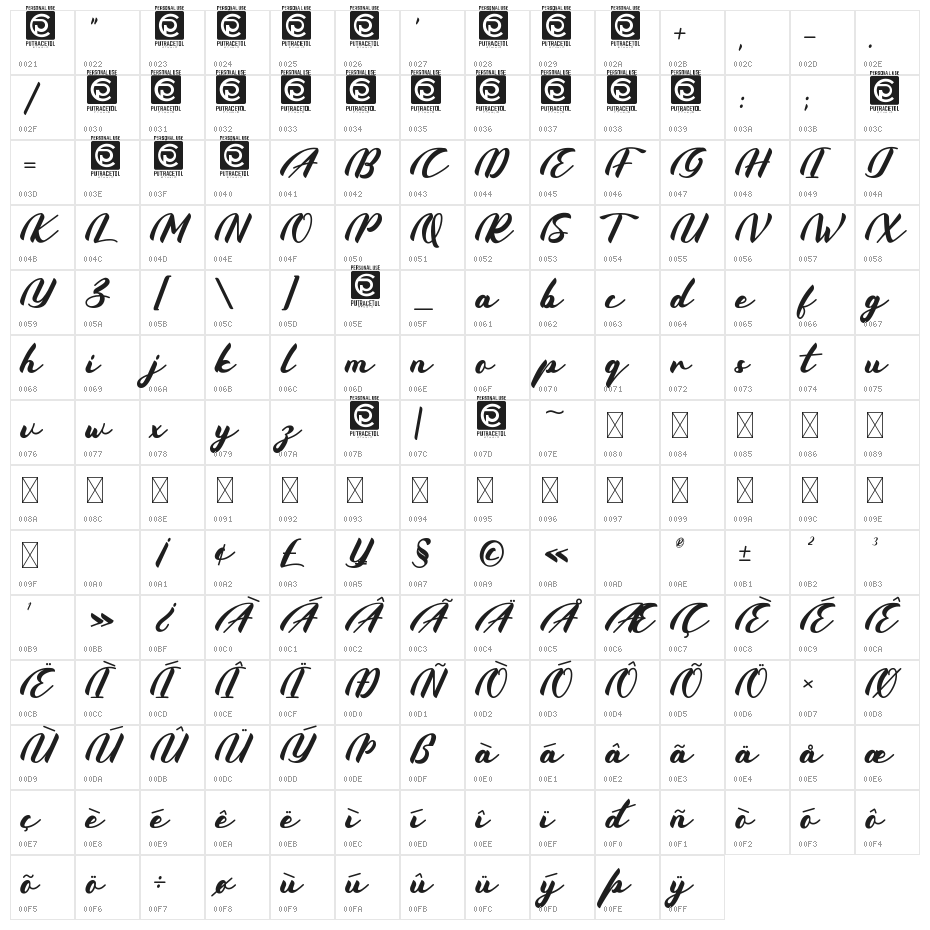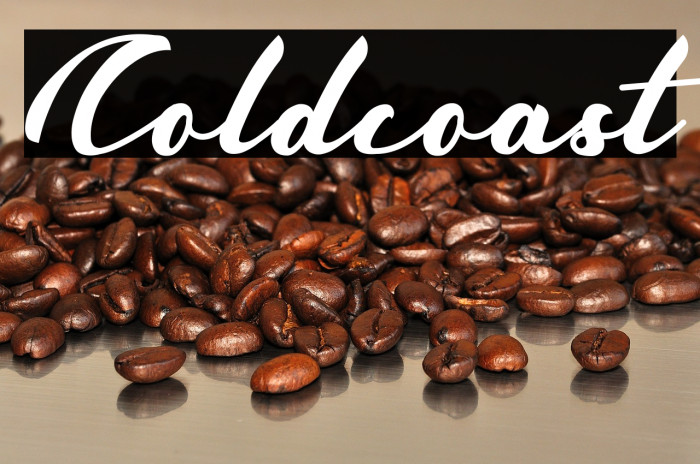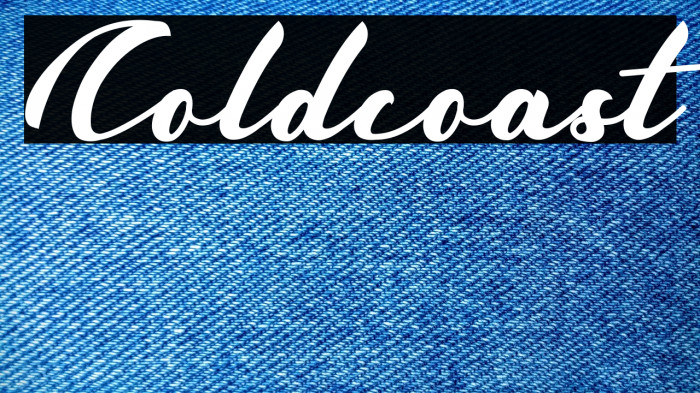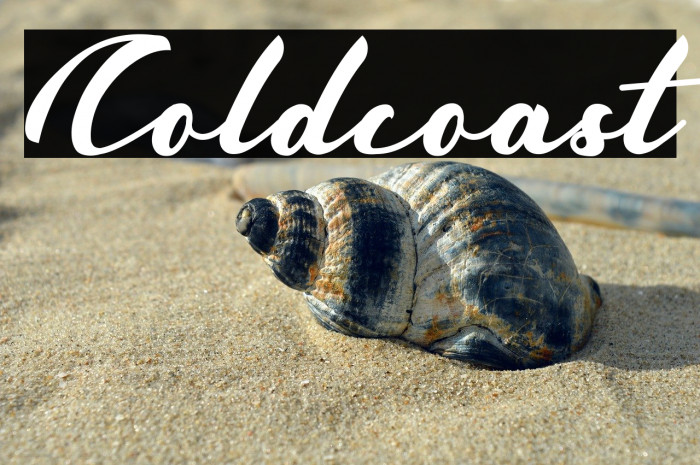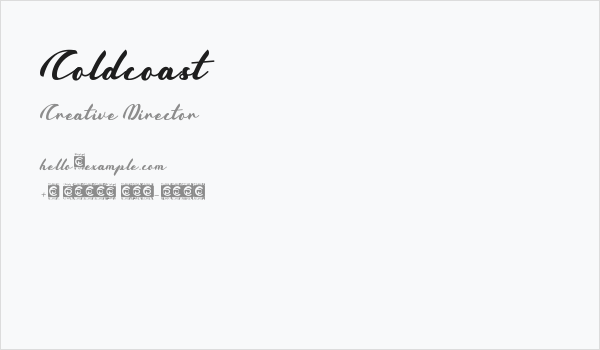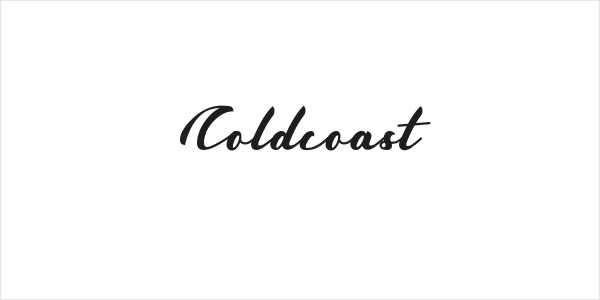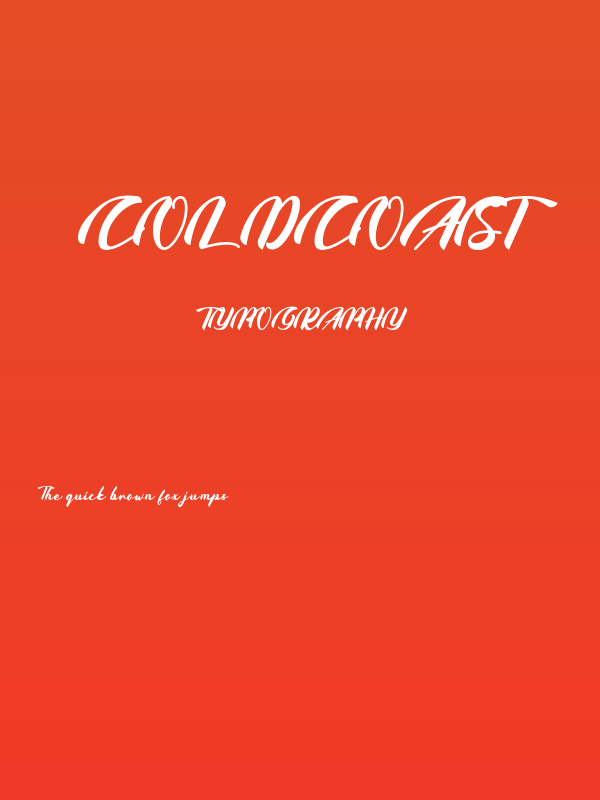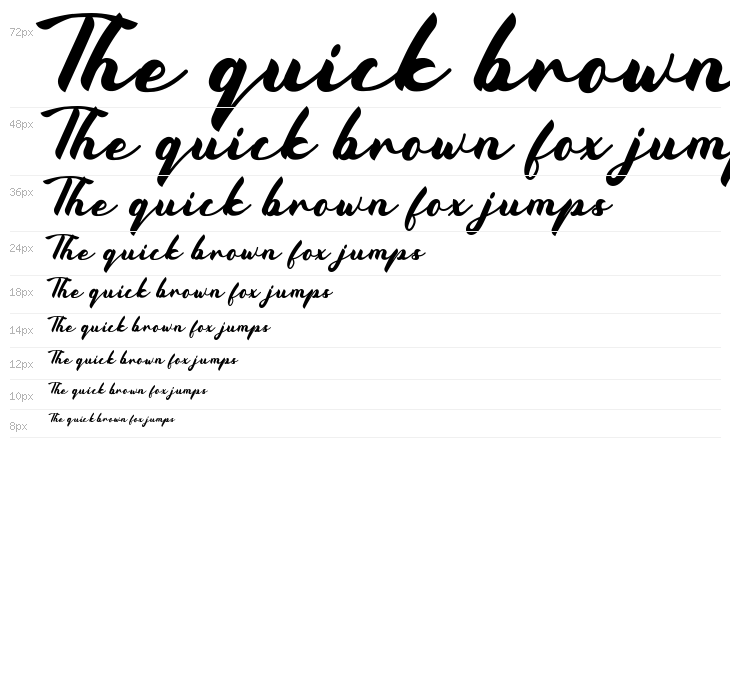
Coldcoast Font
Coldcoast Description
This font features a dynamic and flowing script style, characterized by its elegant and cursive letterforms. The uppercase letters exhibit a bold and sweeping design, with distinctive loops and curves that convey a sense of movement and grace. The lowercase letters maintain a cohesive flow, complementing the uppercase with their smooth connections and rounded shapes. The font's overall appearance is both stylish and sophisticated, making it suitable for a variety of creative applications. The numerals and special characters are crafted with the same attention to detail, ensuring consistency throughout the typeface.
| Overall Style | Elegant |
| Use Case | Logos, Invitations, Branding |
| Proposed Projects | Ideal for wedding invitations, branding projects, greeting cards, and elegant logos. |